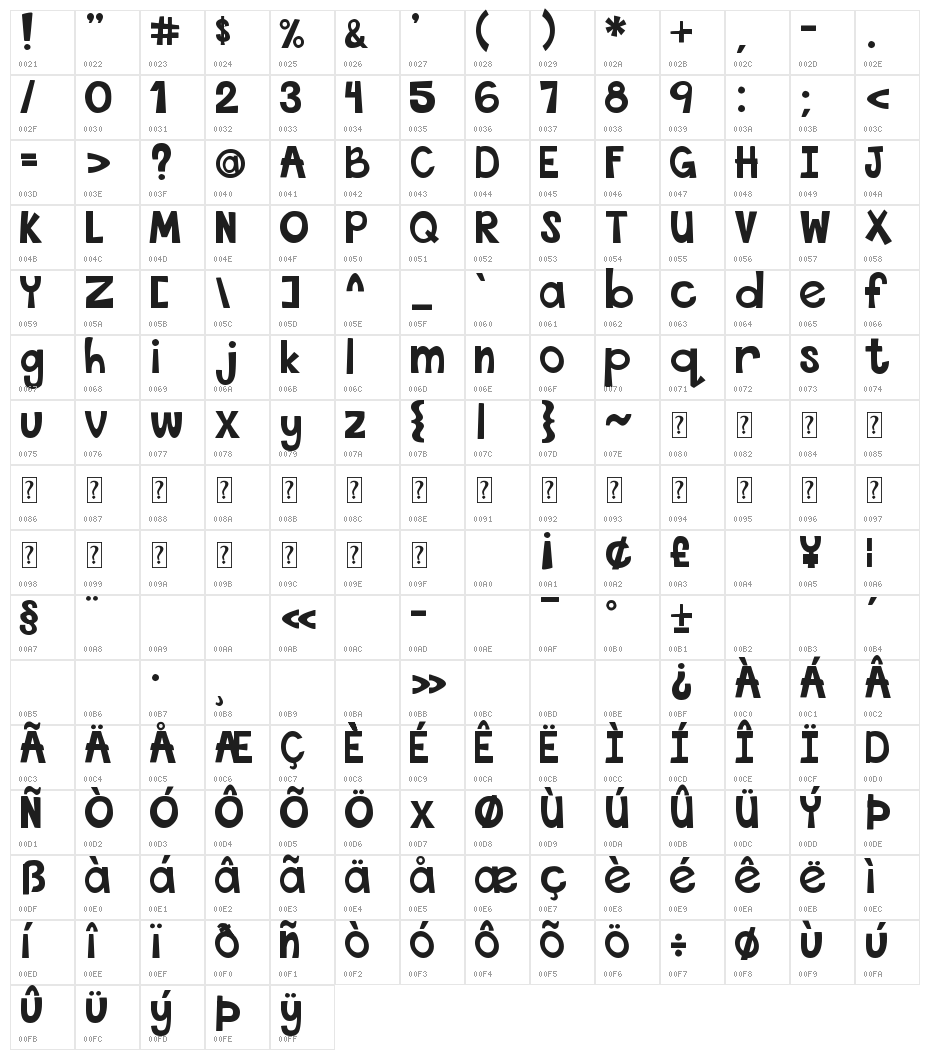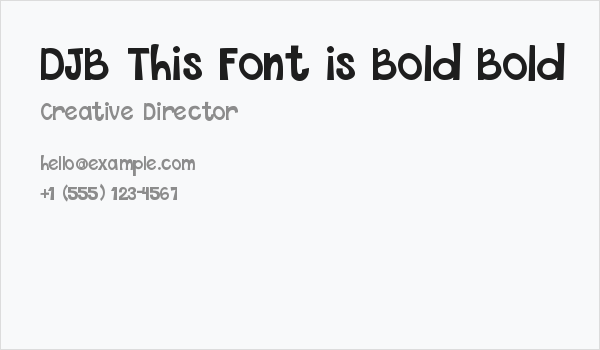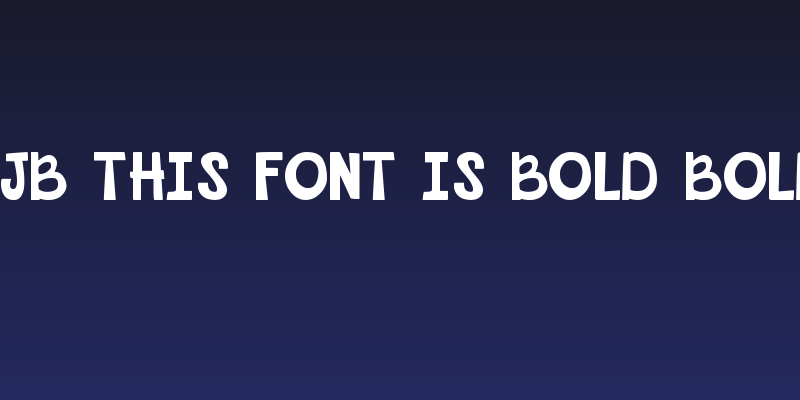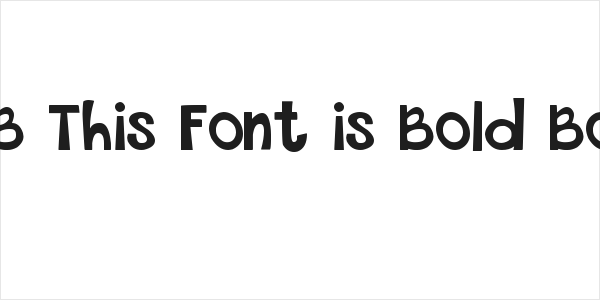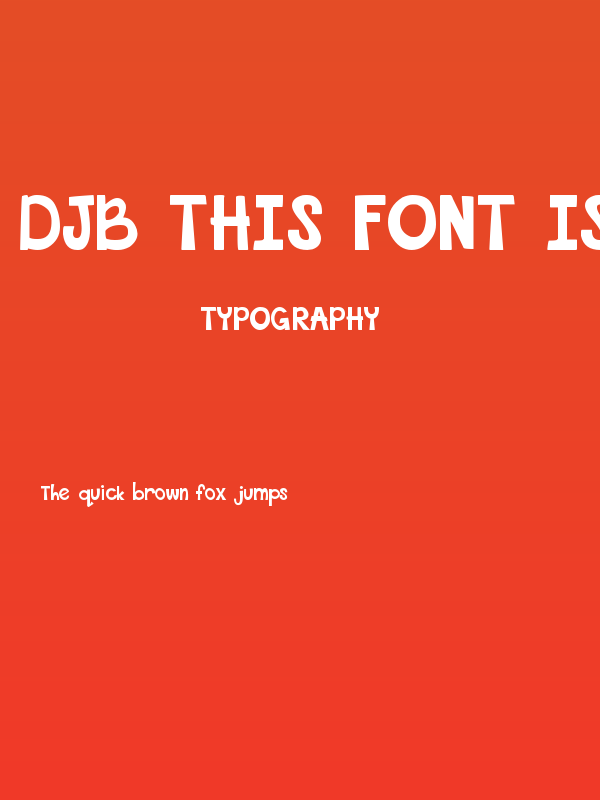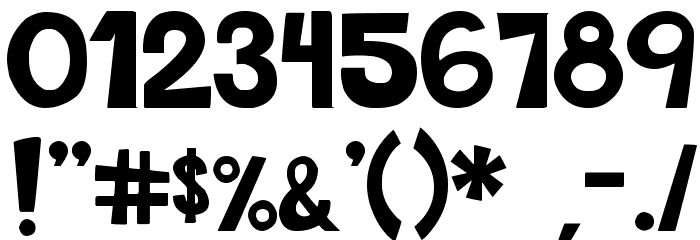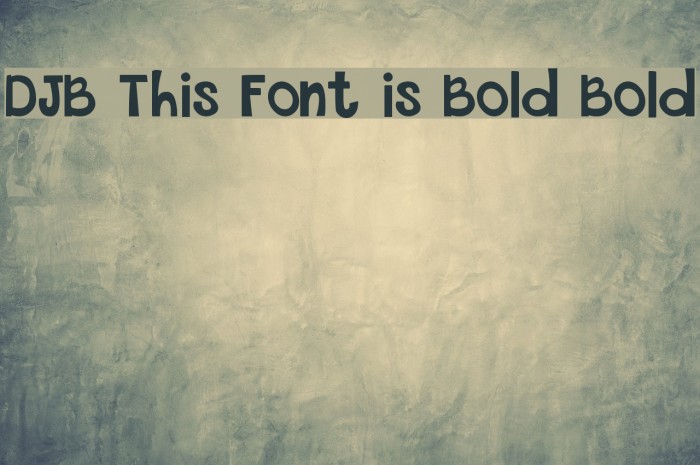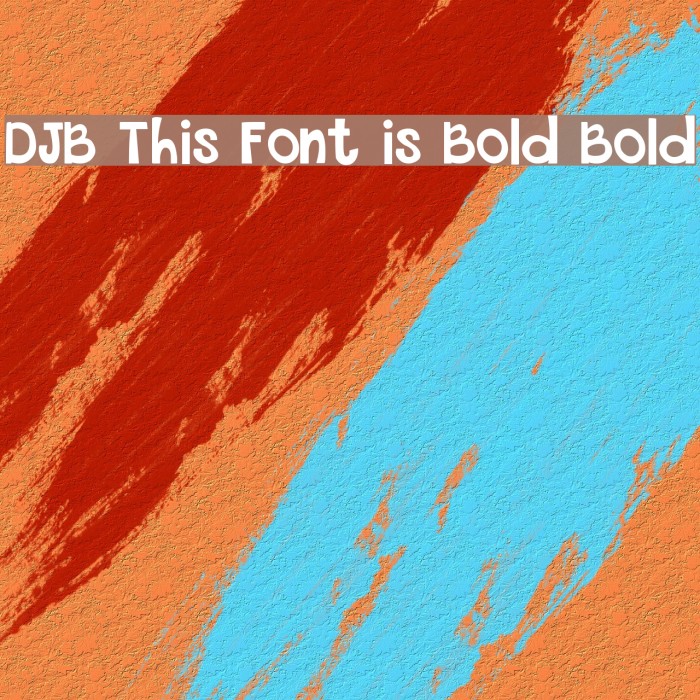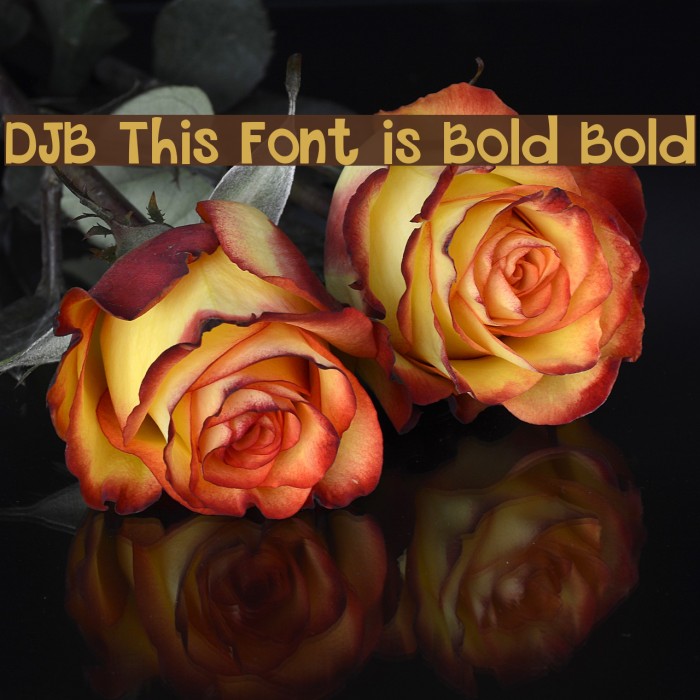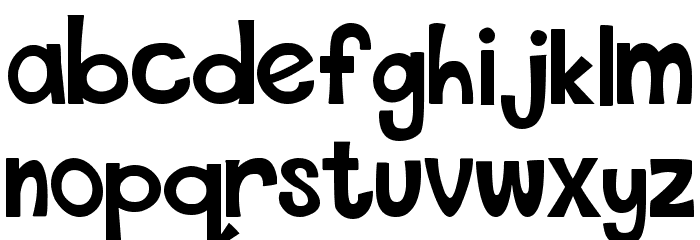
DJB This Font is Bold Bold Font
DJB This Font is Bold Bold Description
| Overall Style | Playful, Casual |
| Proposed Projects | Ideal for children's books, playful branding, greeting cards, and informal posters. |